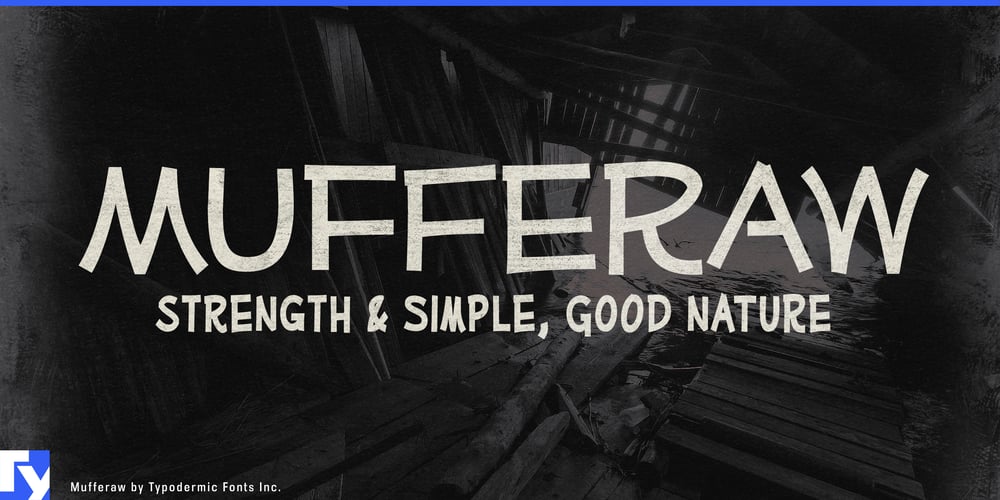
Mufferaw Font Family was designed by Ray Larabie and published by Typodermic. Mufferaw contains 14 styles and family package options. Mufferaw stands tall and proud like a mighty pine in the typographic forest, embodying the rugged spirit of the Ottawa Valley. This font doesn’t just speak—it bellows with the robust charm of a lumberjack’s hearty laughter.Imagine letters hewn from the very timber of Canada’s wilderness. Mufferaw’s well-defined yet expressive contours mirror the weathered hands of seasoned loggers, each character telling a tale of hard work and simple pleasures. Its woodsy style isn’t just design—it’s a visual ode to flannel shirts, axes slung over shoulders, and the crisp scent of freshly cut cedar.But Mufferaw is no one-trick pony in the typographic rodeo. It offers two weights as sturdy as a lumberjack’s biceps and three widths as varied as the forests of the Great White North. Need to fell a design with extra impact? The italics lean in like a logger, sizing up the perfect cut. And for those moments when your layout needs to stand out like a blazed trail, the outline and 3D variations add depth as rich as a Canadian winter. This typeface speaks fluently in tongues as diverse as the Ottawa Valley itself. From the fjords of Norway to the steppes of Hungary, Mufferaw carries your message with the strength of a fully loaded logging truck. It’s equally at home on a craft beer label, a wilderness adventure poster, or the masthead of a rugged lifestyle magazine.So, whether you’re designing a local syrup festival flyer or branding the next great outdoor gear company, let Mufferaw be your typographic axe. It’ll chop through the underbrush of mediocre design, leaving a clearing of pure, unadulterated charm in its wake. Grab Mufferaw, and let’s get to work, eh?